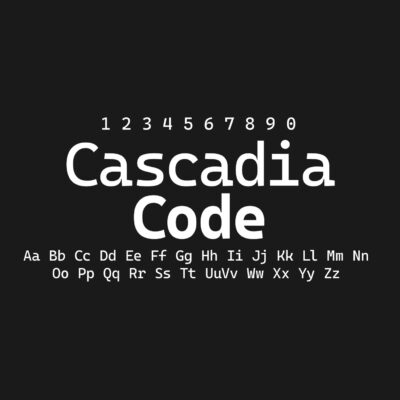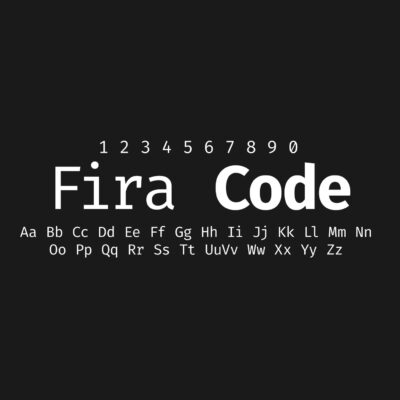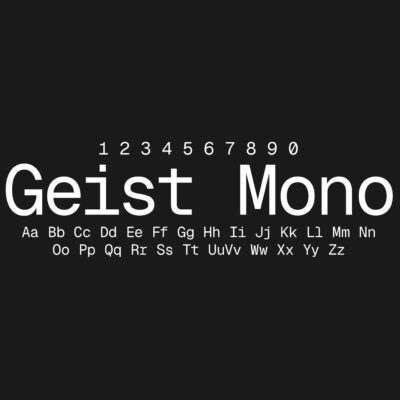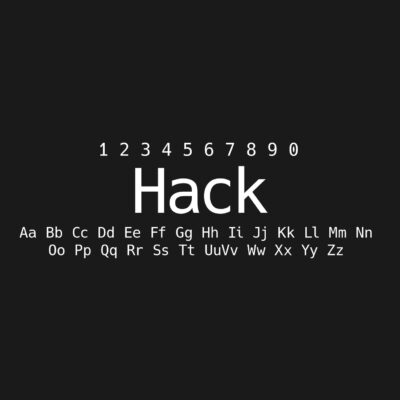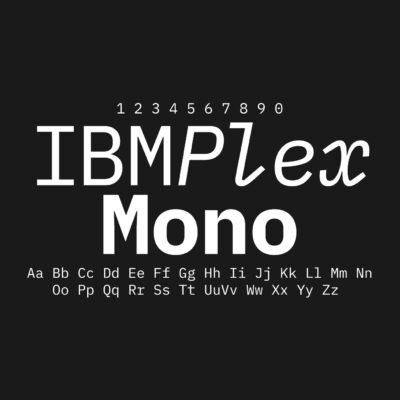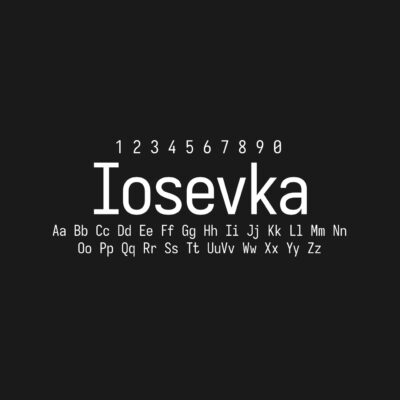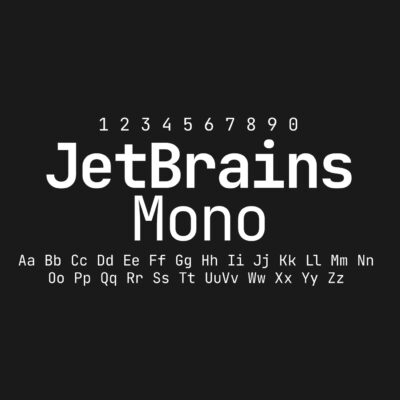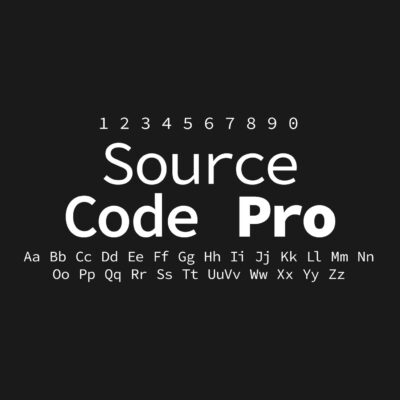
Best Free Coding Fonts for Developers
Choosing a coding font is more personal than it looks. A font can seem perfect in a screenshot and feel annoying after three hours of reading logs, fixing syntax errors or scanning a long Git diff.
That is why a good coding font should do more than look modern. It should make similar characters easy to separate, keep punctuation clear, and stay comfortable at small sizes. The difference between 0 and O, 1 and l, or { } and ( ) matters a lot more when you are working inside an editor all day.
Some developers prefer fonts with programming ligatures. These turn combinations like !=, => or === into cleaner visual symbols. Others prefer seeing every character exactly as typed. Both approaches are valid. The best coding font is the one that helps you read code faster without thinking about the font itself.
Below are some of the best free coding fonts for developers, with different options for VS Code, terminals, documentation, UI design and everyday programming.
Best Free Coding Fonts Compared
| Font | Best For | Ligatures | General Feel |
|---|---|---|---|
| JetBrains Mono | Daily coding and IDEs | Yes | Balanced, modern and comfortable |
| Fira Code | Developers who like ligatures | Yes | Developer-focused and expressive |
| Cascadia Code | Windows Terminal and VS Code | Yes | Modern and practical |
| Hack | Terminal and backend work | No | Clear, classic and dependable |
| Source Code Pro | Documentation and clean editors | No | Polished and neutral |
| Iosevka | Dense code and narrow layouts | Optional | Compact and efficient |
| IBM Plex Mono | Technical docs and enterprise UI | No | Serious and engineered |
| Geist Mono | Developer websites and code previews | No | Minimal and contemporary |
| Monaspace | Experimental editor setups | Yes / varies | Flexible and expressive |
| Roboto Mono | Web code blocks and simple projects | No | Familiar and easy to use |
| Ubuntu Mono | Linux terminals and personal setups | No | Warm and recognizable |
| Space Mono | Display use and code-inspired graphics | No | Stylish and bold |
JetBrains Mono
JetBrains Mono is a strong starting point if you want one coding font that works almost everywhere. It feels modern without becoming flashy, and its letterforms are built around the kind of details developers stare at all day: operators, punctuation, brackets and small text.
It is especially comfortable in IDEs and editors like VS Code. The spacing feels calm, the characters are easy to scan, and the font does not draw too much attention to itself. It also supports programming ligatures, but it still works well if you turn them off.
Use JetBrains Mono if you want a reliable everyday coding font that feels current, readable and easy to live with.
Fira Code
Fira Code is the classic choice for developers who enjoy programming ligatures. It makes operators like !=, ===, => and -> look cleaner inside the editor while keeping the actual code unchanged.
This can make some languages feel smoother to read, especially JavaScript, TypeScript, Rust and other syntax-heavy environments. But ligatures are a matter of taste. Some developers love the cleaner look; others feel like it hides too much of the raw text.
Use Fira Code if you specifically want ligatures and like your editor to feel a little more visually refined.
Cascadia Code
Cascadia Code fits naturally into Windows Terminal, PowerShell and VS Code workflows. It has a modern but practical look, with enough personality to feel fresh without becoming distracting.
The font also comes from a command-line and terminal-focused background, so it does not feel like a design font forced into a coding environment. If you use Windows Terminal often, Cascadia Code is one of the easiest recommendations.
Use Cascadia Code if you work mostly in VS Code, Windows Terminal or Microsoft development tools.
Hack
Hack is the opposite of a trendy coding font, and that is a good thing. It is direct, clear and built for source code. The characters are open, the spacing is predictable, and small text remains easy to read.
It works especially well in terminals, backend projects, shell scripts and long text-heavy coding sessions. Hack does not try to make code look elegant. It tries to make code readable.
Use Hack if you want a classic, no-nonsense programming font that gets out of the way.
Source Code Pro
Source Code Pro has a polished and professional tone. It feels clean in editors, but it is also very useful in documentation pages, code examples, developer blogs and design systems.
Compared to Hack, it feels a little more refined. Compared to JetBrains Mono, it feels more neutral and less tied to a specific IDE culture. That makes it a good choice when code needs to appear inside a designed page, not only inside a code editor.
Use Source Code Pro if you want code to look clean, stable and professional across editors, documentation and websites.
A good coding font should not keep asking for attention. It should make code easier to read, errors easier to catch and long sessions less tiring. Screenshots can help, but the real test is simple: use the font for a full workday and see whether you still like it.